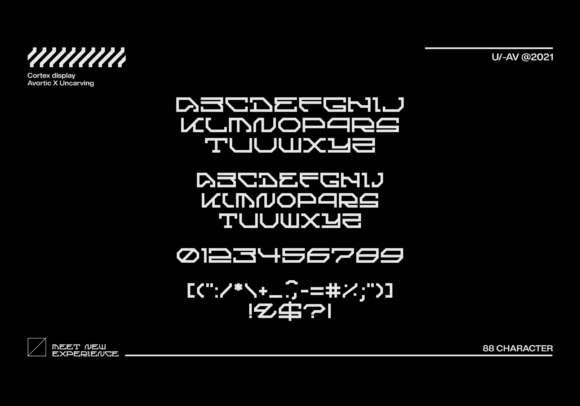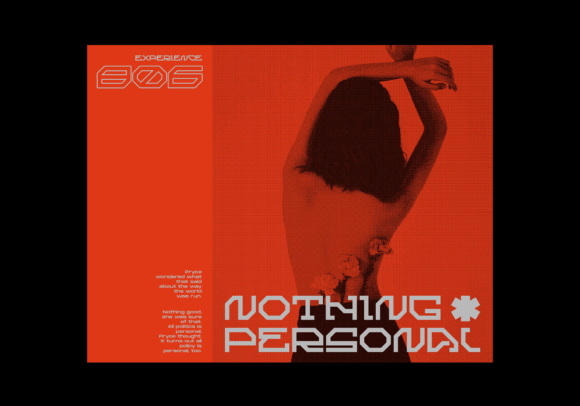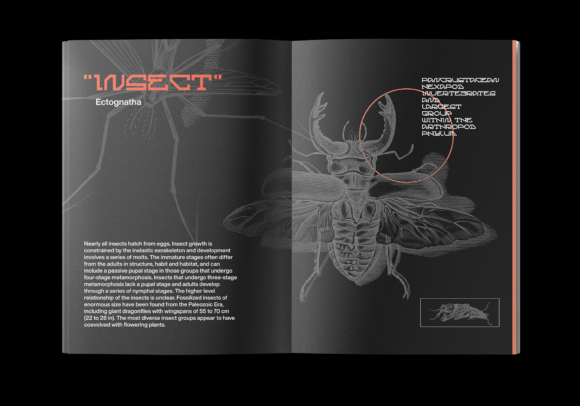
Introduction to Cortex Font
Have you ever been working on a creative project, and you just can’t seem to find the right font to bring your vision to life? You’ve tried scrolling through countless design resources, but nothing seems quite right. That’s where the Cortex Font comes in – a modern and cool display font that’s sure to elevate your design game.
With its smooth, futuristic lines and just a touch of contrast, the Cortex Font is the perfect addition to any design project. Whether you’re working on a logo, branding, or web heading, this font is sure to make your ideas stand out. And the best part? It’s available for free download, making it an invaluable resource for designers on a budget.
Key Features of Cortex Font
- High-quality design resource with a transparent background, ideal for creative projects.
- Features a clean and modern design, making it perfect for use in logos, typography, and other graphic design elements.
Honest Review: Cortex Font
I recently had the chance to work with the Cortex Font, and I must say it’s been a great addition to my design resource library. This font is perfect for designers who want to create a unique and modern look for their creative projects.
What works well: ✨ The Cortex Font offers a wide range of characters, making it suitable for various design applications. Its high quality and crisp lines make it perfect for both print and digital designs. Additionally, it’s free to download, which is a huge plus for designers on a budget.
- High-quality design suitable for print and digital media
- Wide range of characters for various design applications
However, there are some limitations to consider: ⚠️ The Cortex Font is only available in a limited number of styles, which may not be suitable for designers who require a more extensive font collection.
Overall, I’m impressed with the Cortex Font. Its high quality, modern design, and free download make it an excellent choice for designers working on creative projects. While it may have some limitations, it’s definitely worth considering for your next design project.
Cortex Font
The Cortex Font is a high-quality design resource perfect for any creative project. It offers a transparent background, making it easy to customize and integrate into your design.
Tips for Getting the Most Out of the Cortex Font
Experiment with different font sizes and styles to create visually appealing designs. Use the transparent background to create a sense of depth and layering.
The Cortex Font is perfect for:
- Presentation slides
- Branding materials
- Editorial designs
What makes Cortex Font a high-quality design resource?
Cortex Font is a high-quality design resource due to its advanced typography features, including detailed kerning and advanced font rendering. The font is also designed with a focus on legibility and readability, making it suitable for a wide range of creative projects, from print to web design.